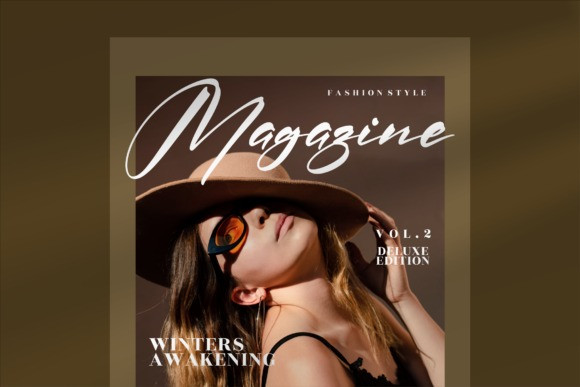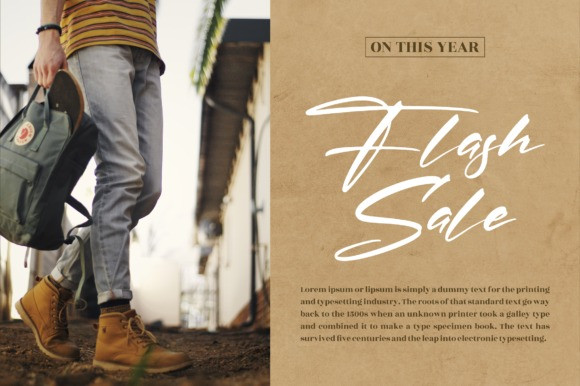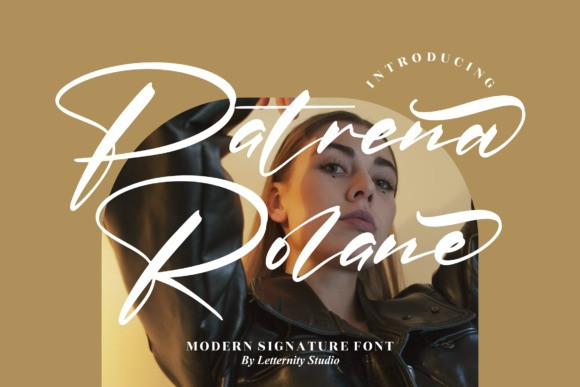
Patrena Rolane Font
Patrena Rolane Font is a lovely and delicate script font that exudes elegance and class. This font was particularly crafted for those who need a beautiful and refreshing look to their designs.